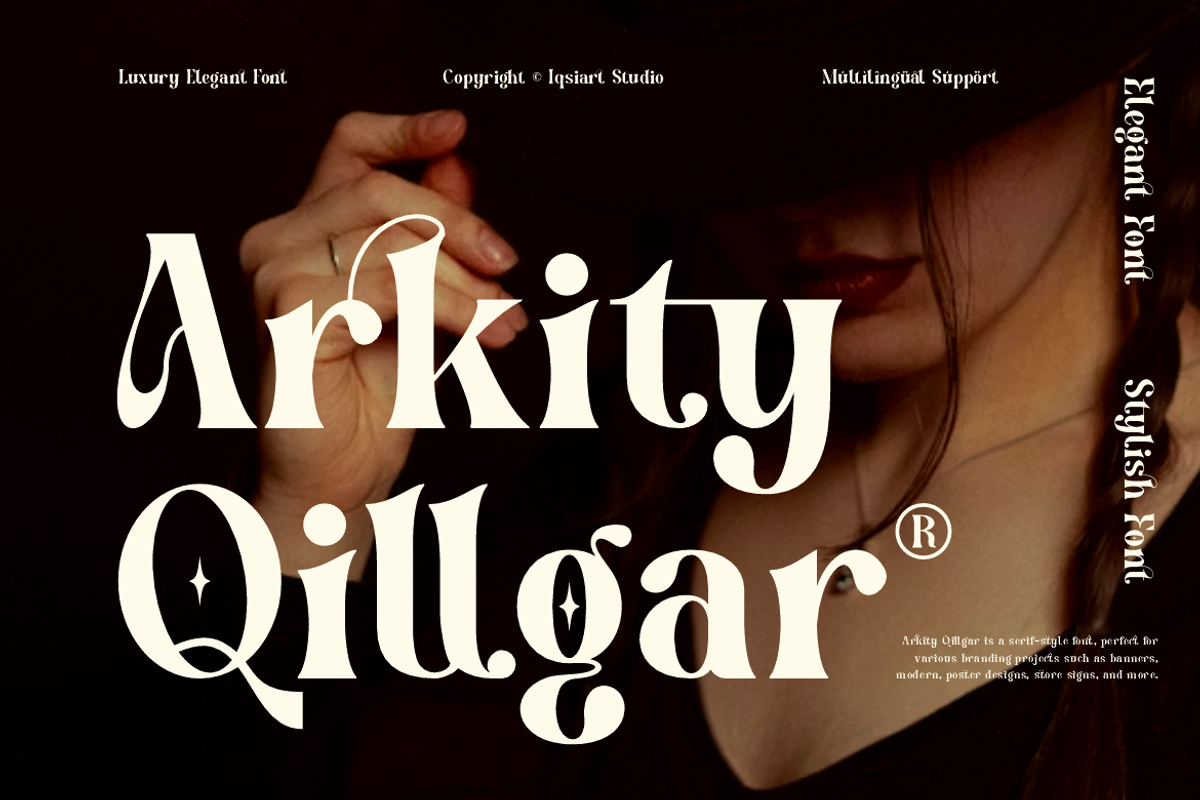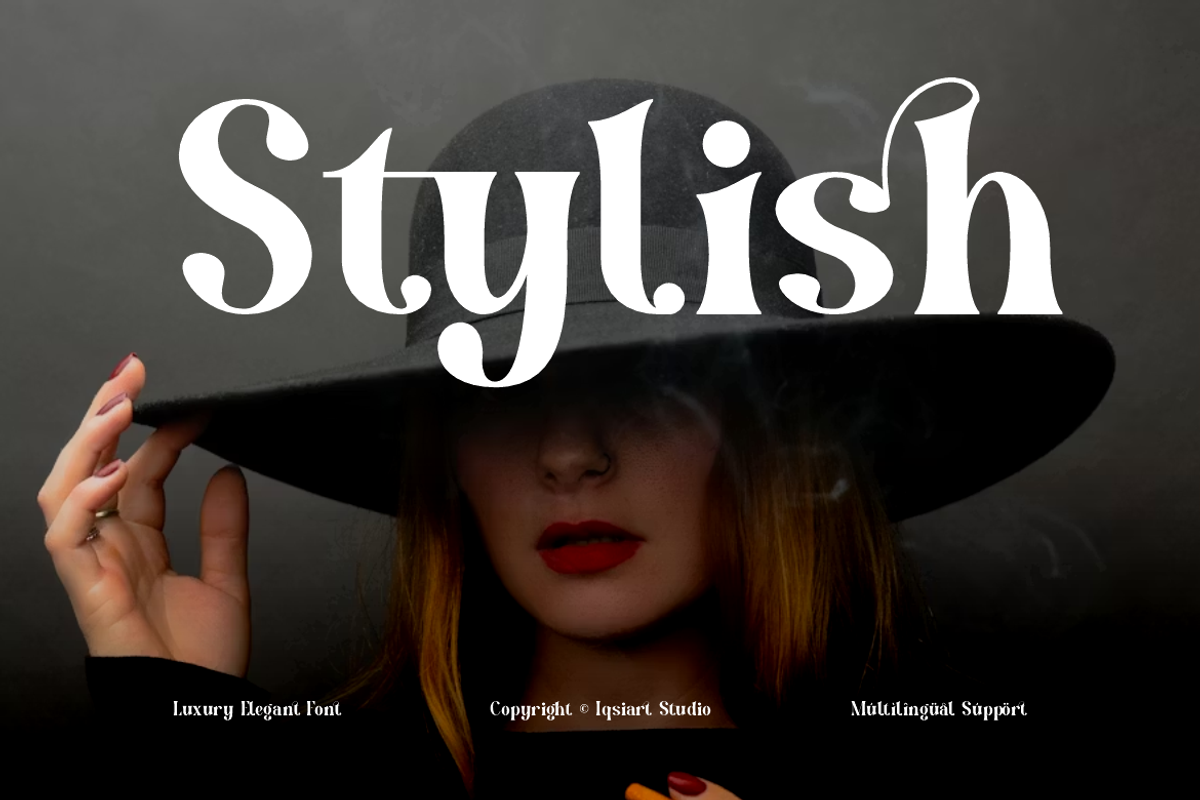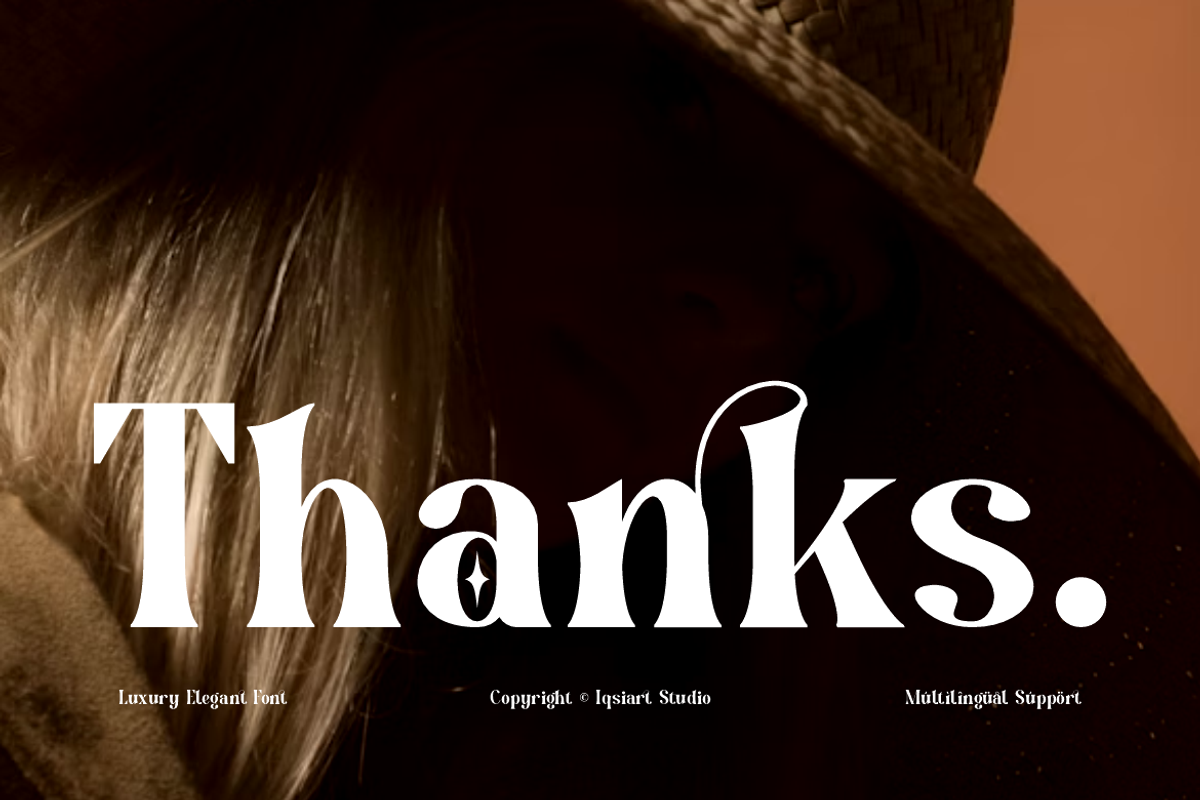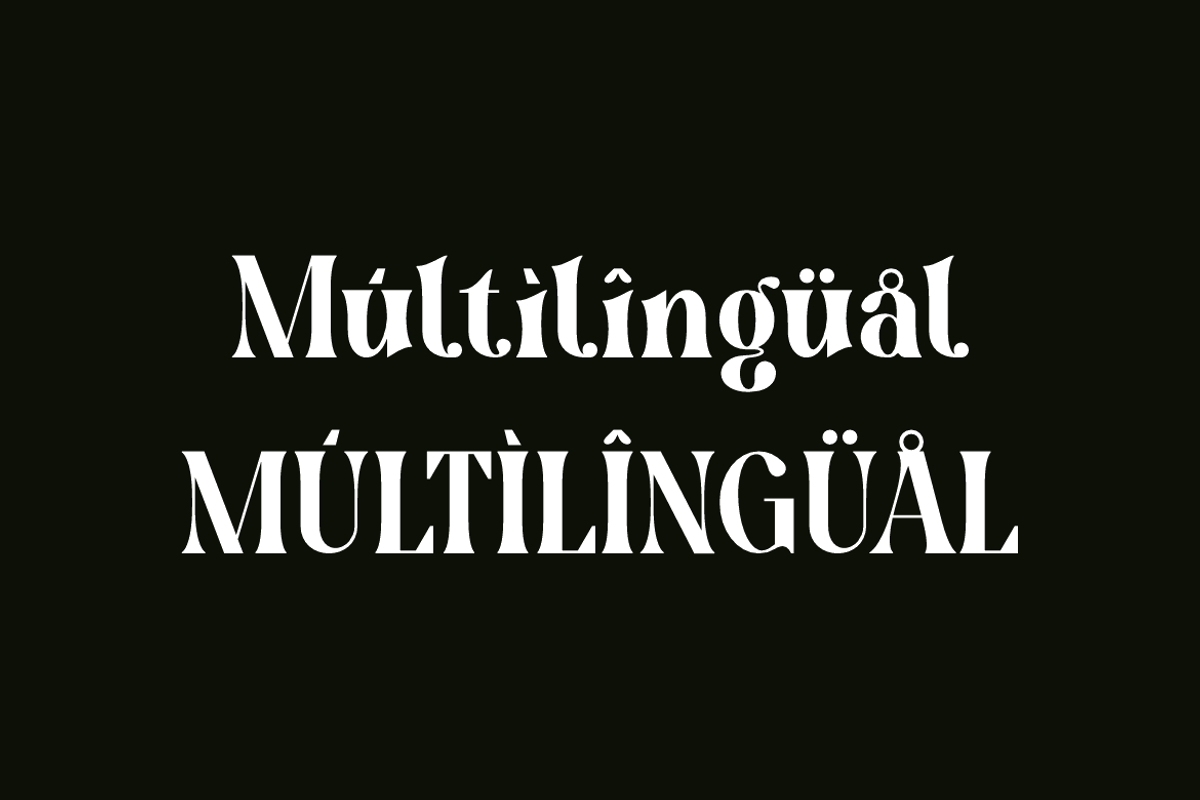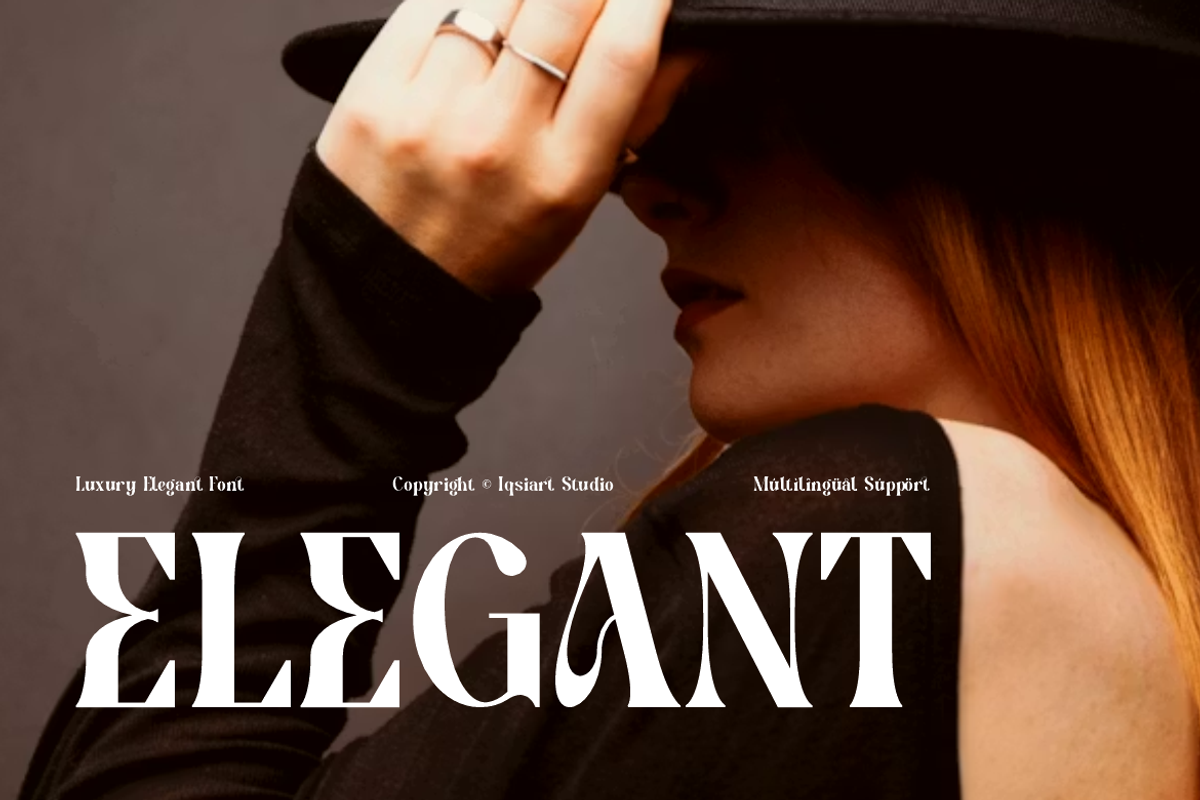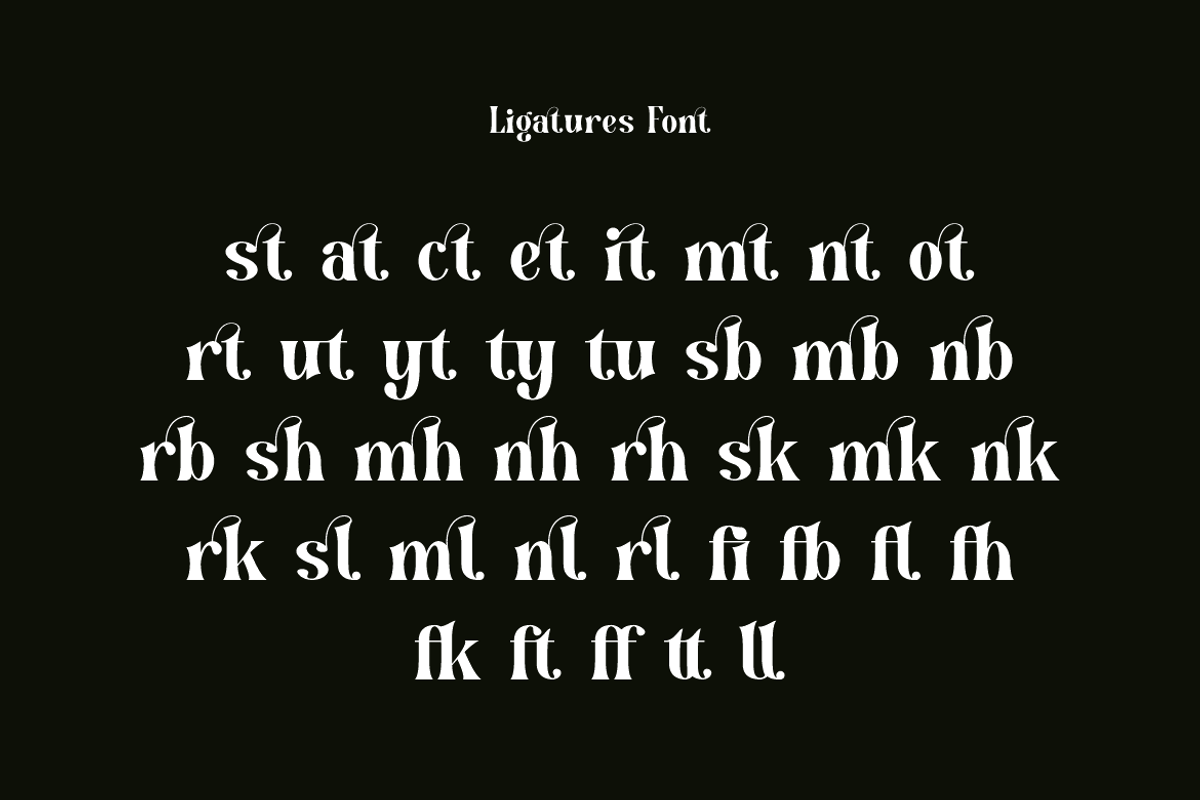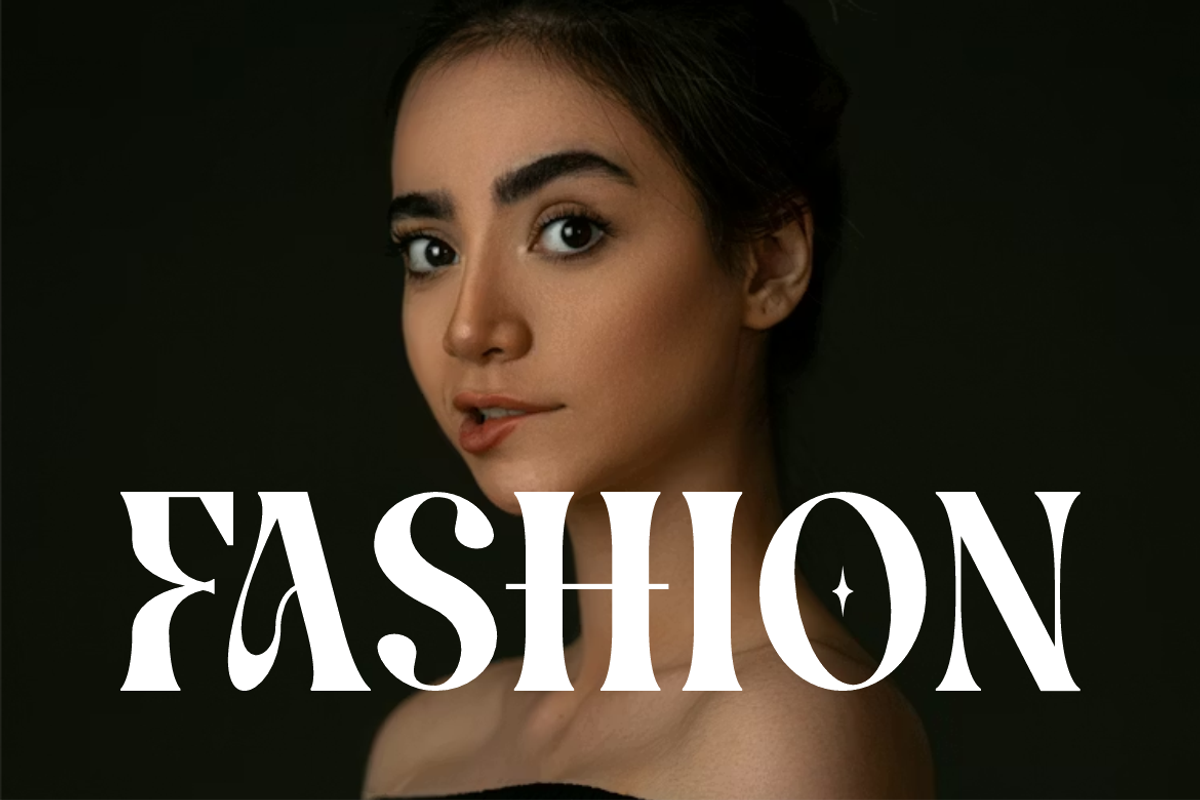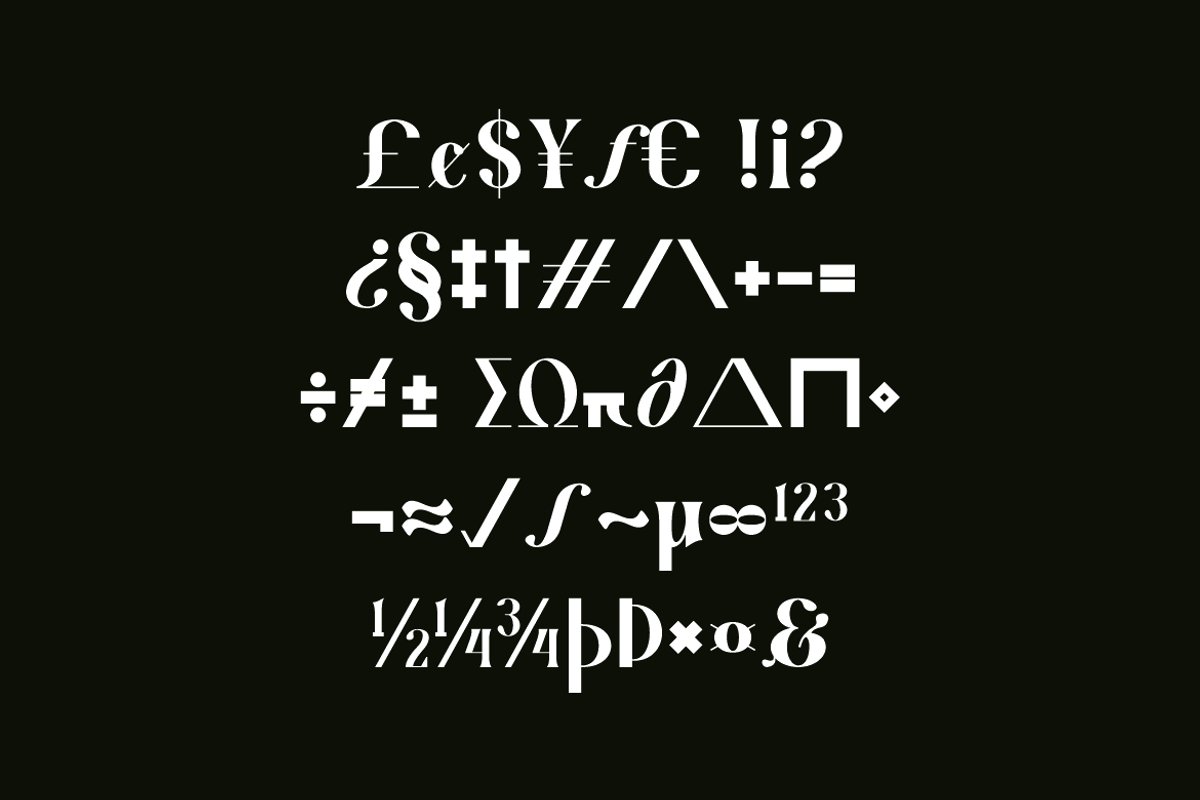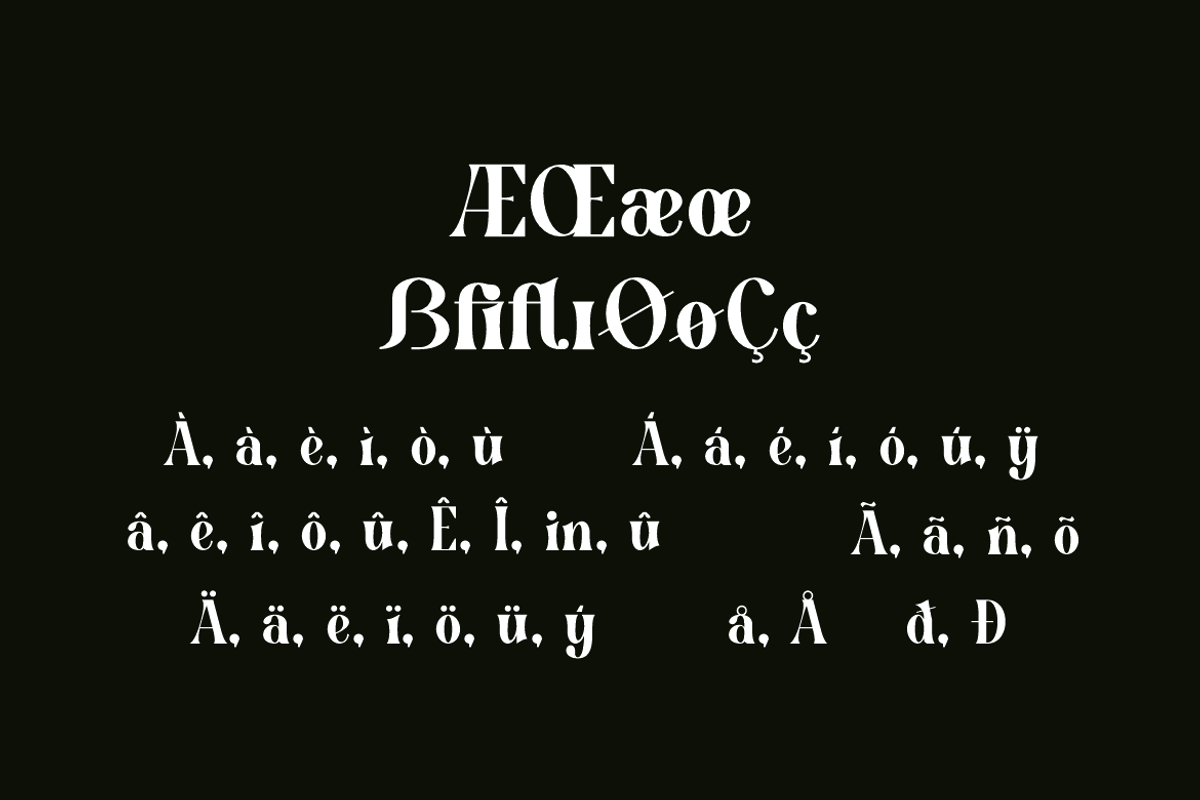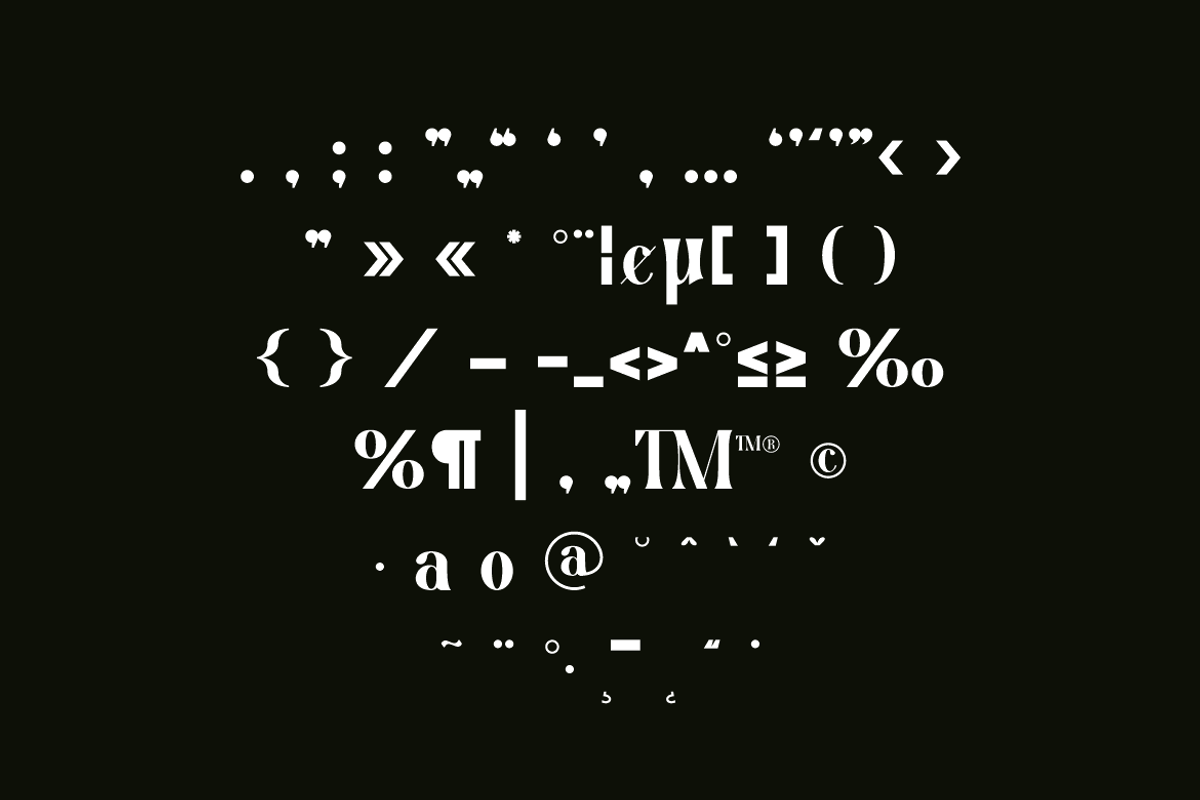
Arkity Qillgar Feminine Elegant Font
Arkity Qillgar Font is a serif and authentic display typeface
that suits a variety of design needs. We offer a wide range of themes